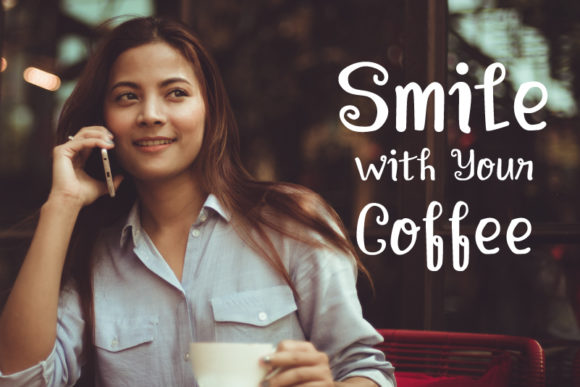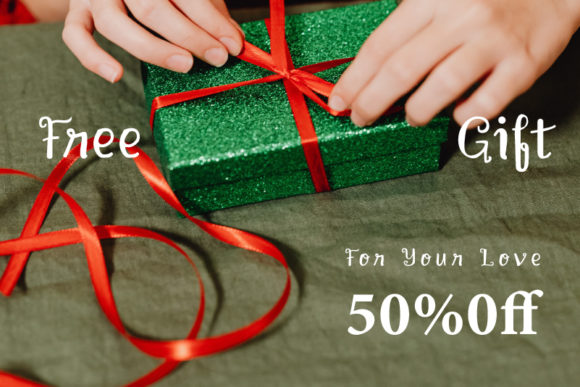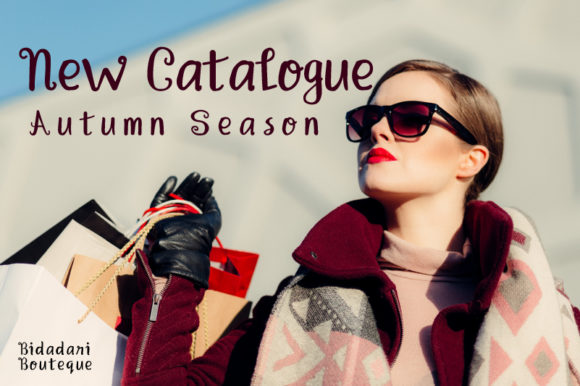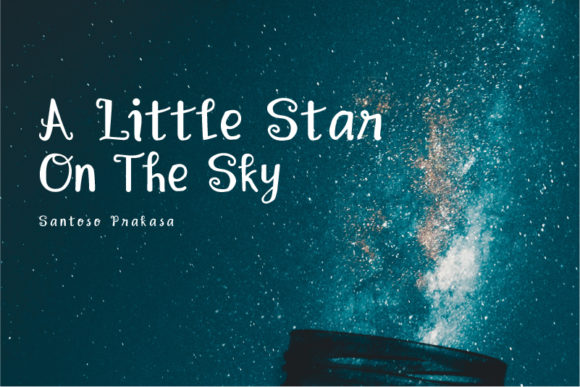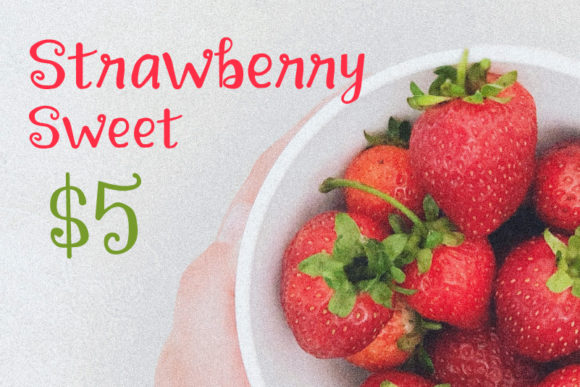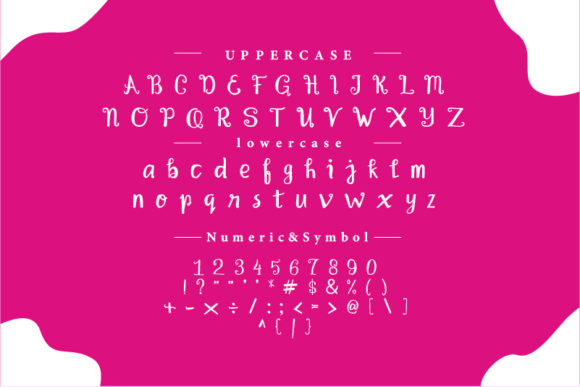
Swisty Font
About Swisty Font
Swisty is a fancy and joyful handwritten font. This gentle font will look gorgeous on a variety of design ideas. It will add a fresh and romantic touch to each of your projects!